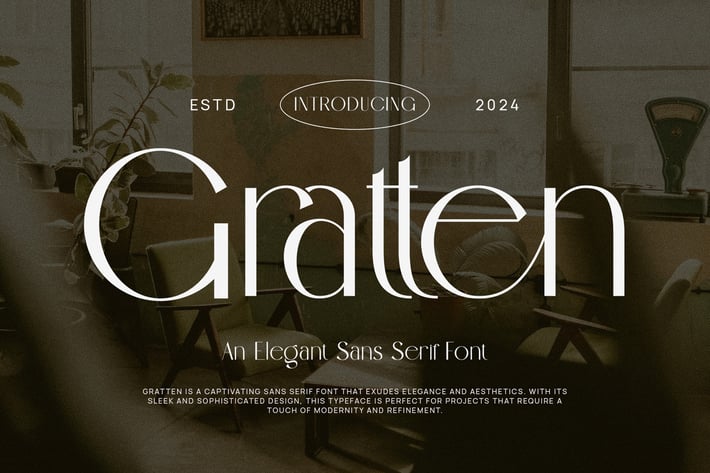
Gratten Elegant Sans Serif Font
Gratten Modern Sans Serif Typeface inspired by the famous minimalist logo perfect for the purposes of designing templates, brochures, videos, advertising branding, logos, invitation, layout design, elegant crafting, beauty design and other